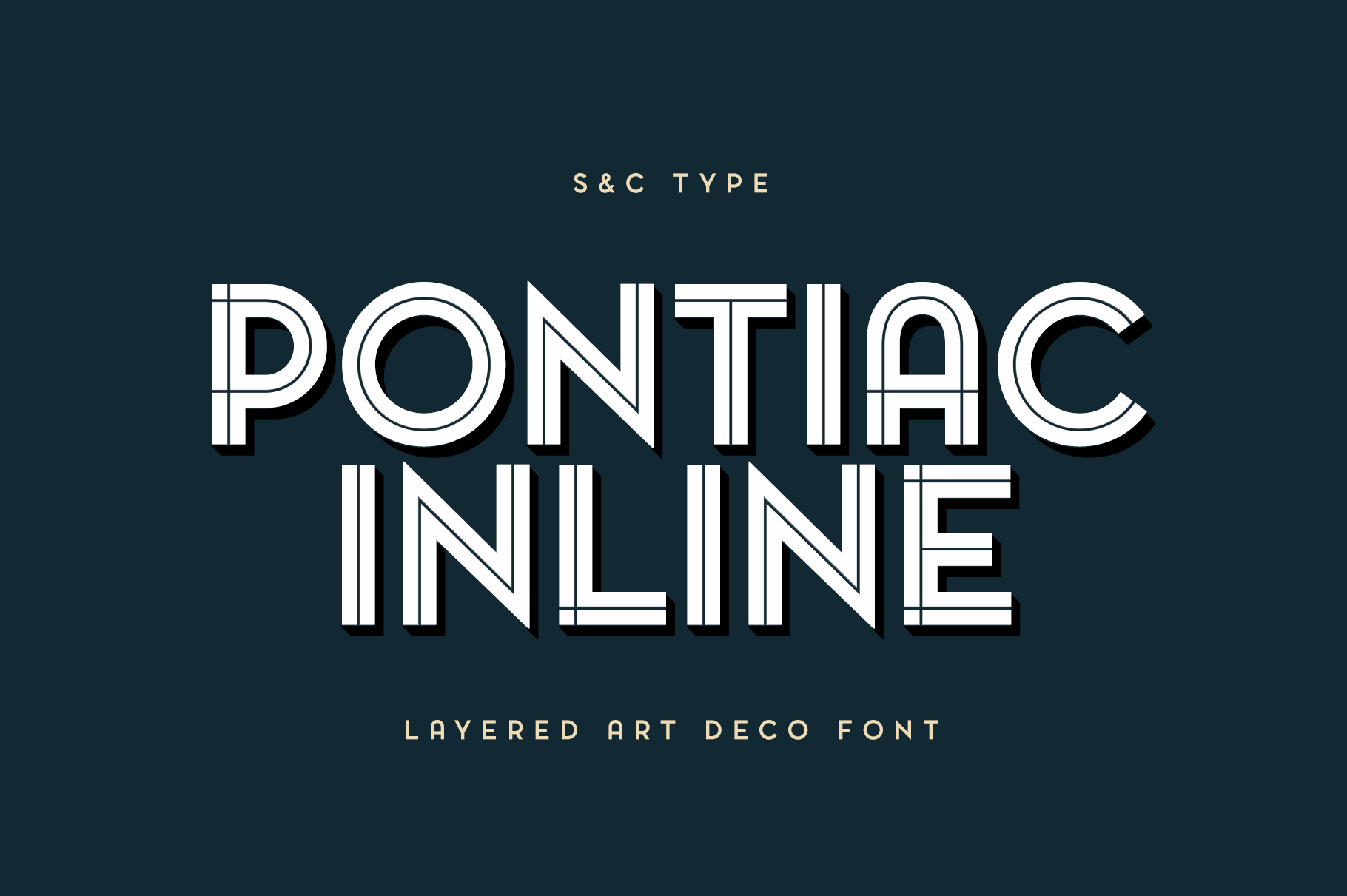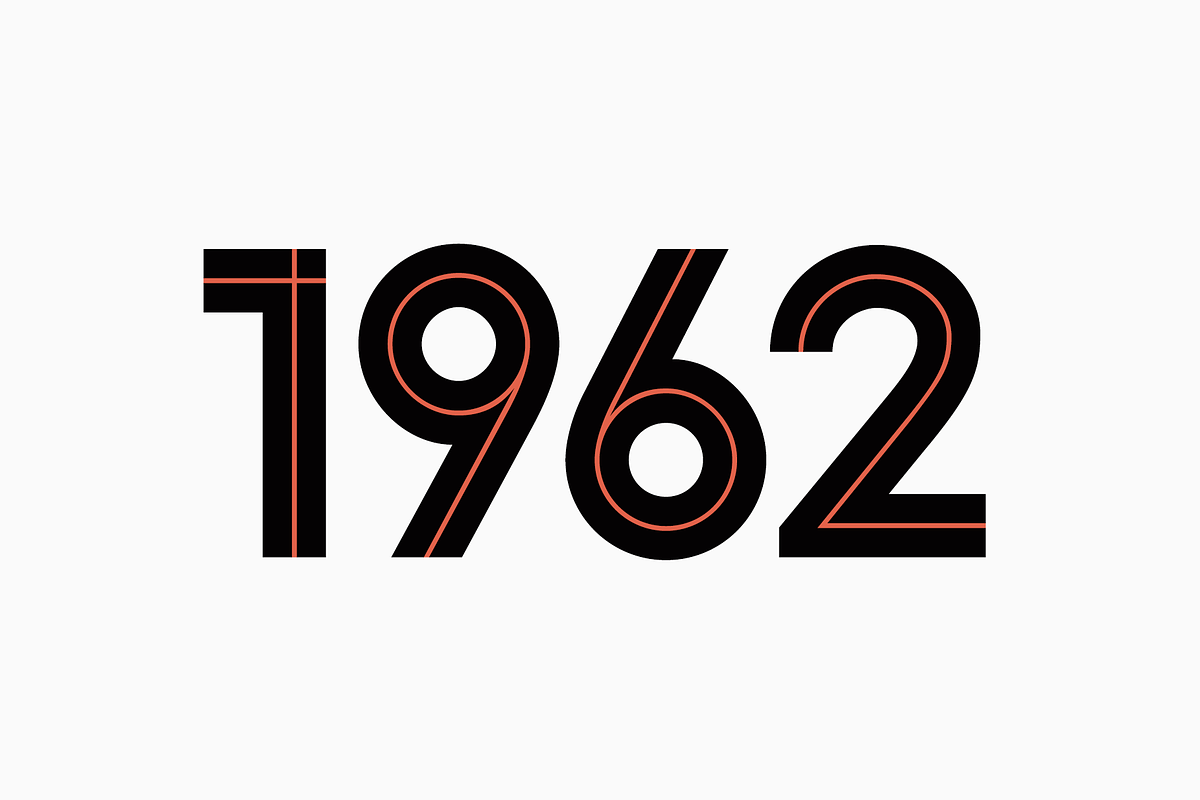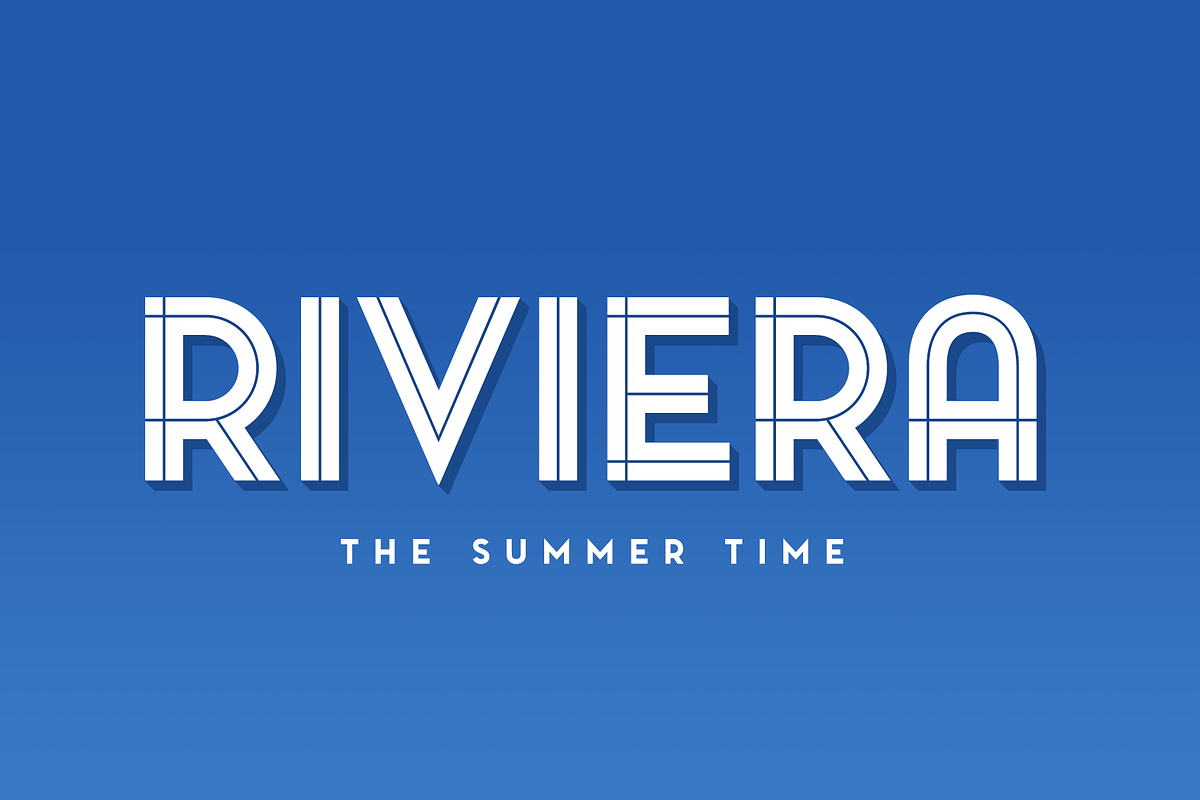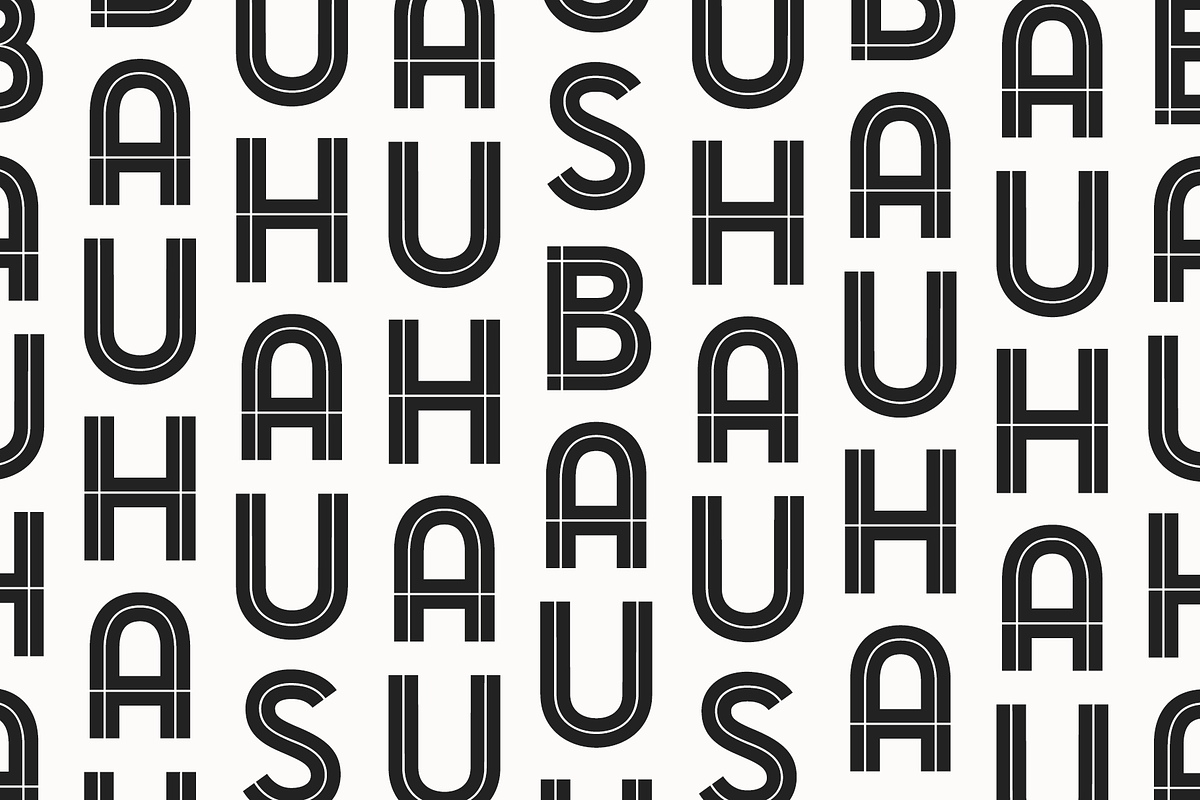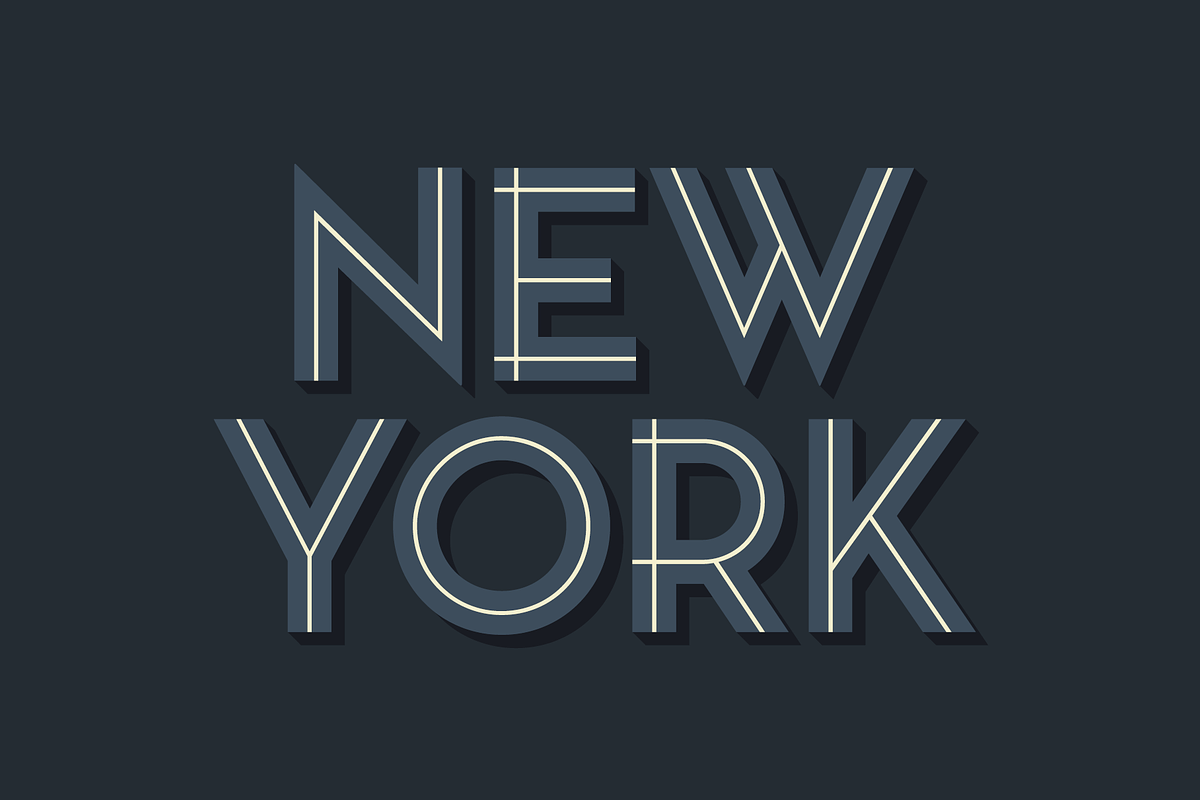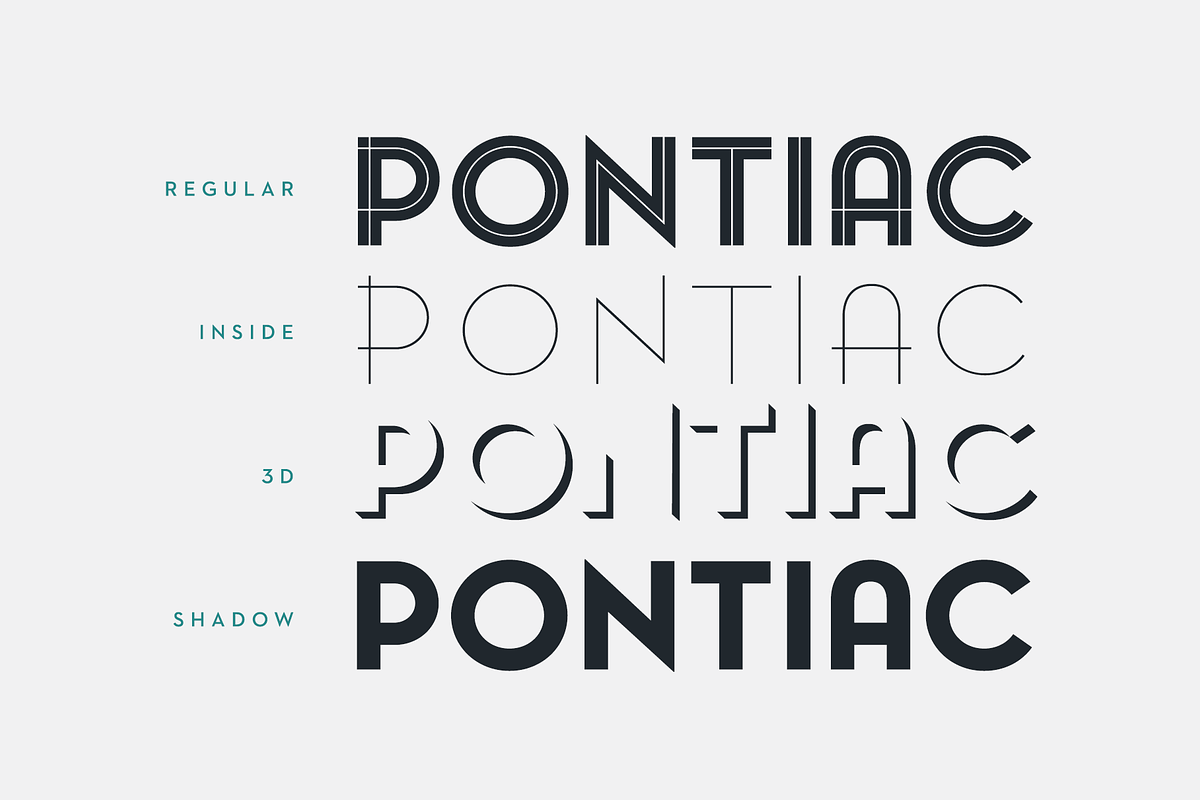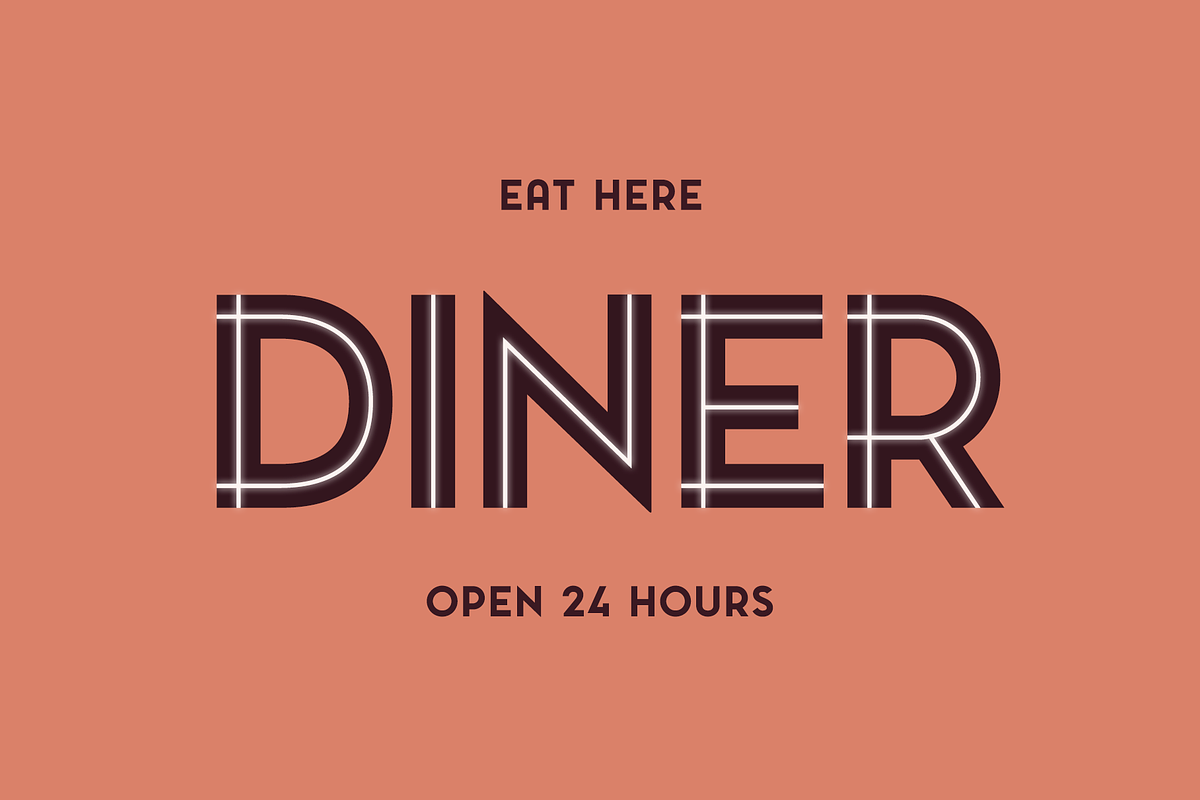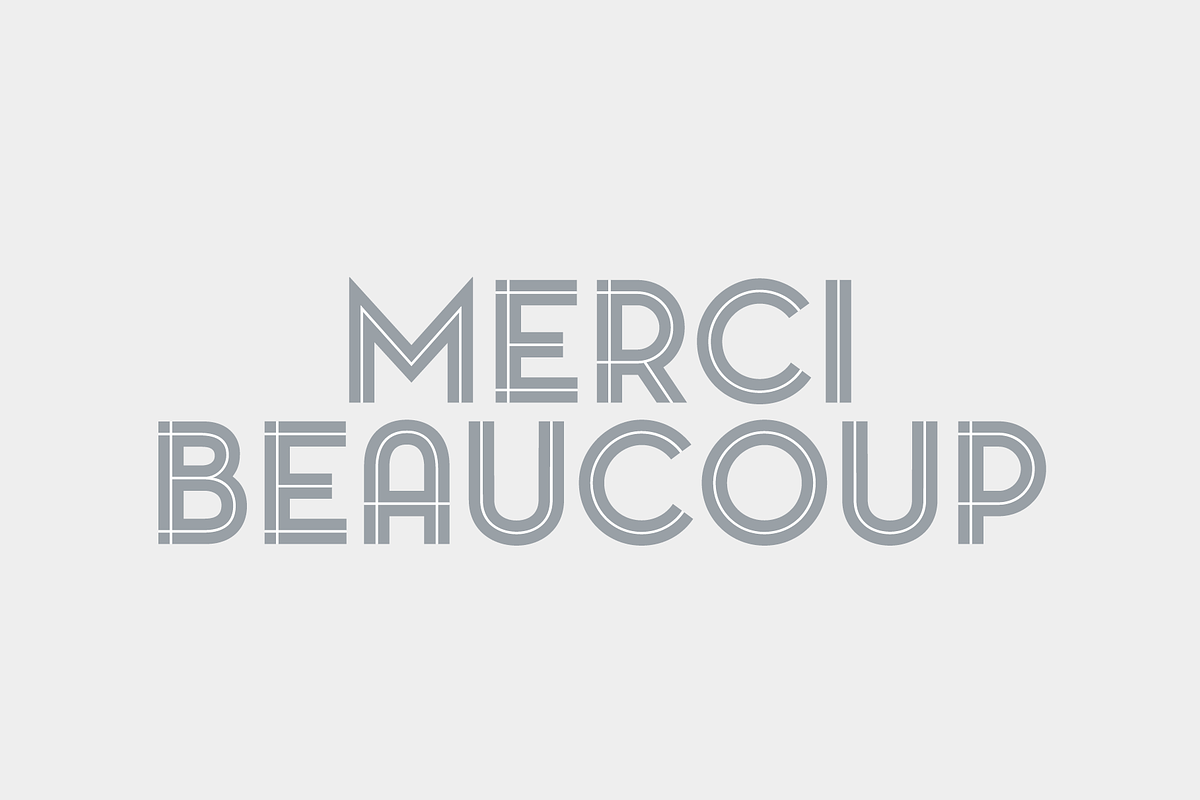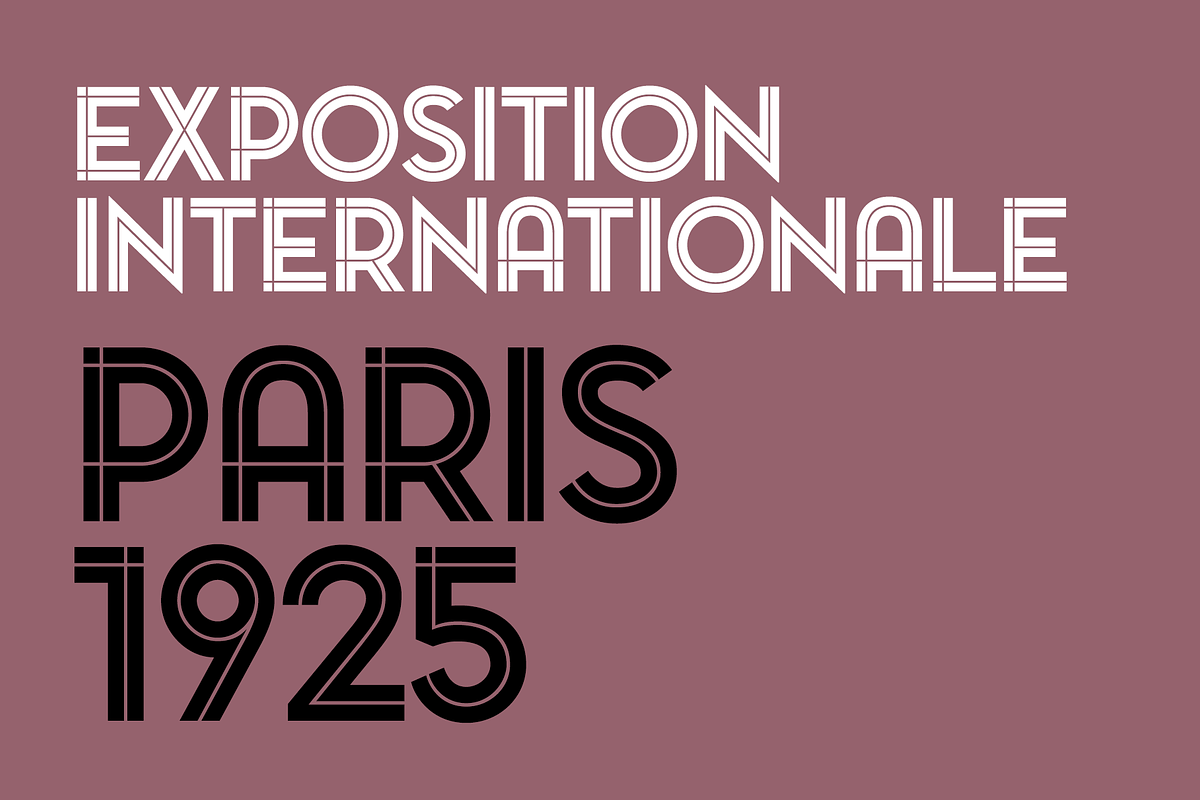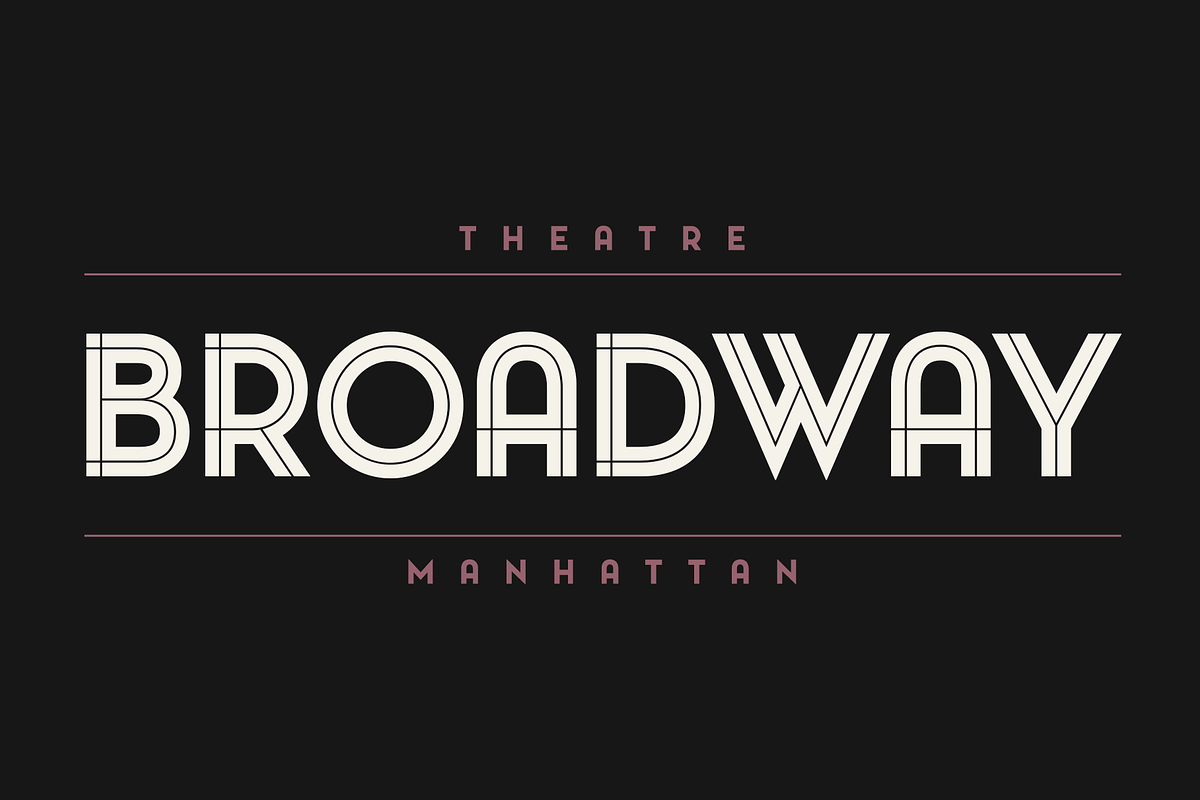
Pontiac Inline Font Collection
Pontiac Inline is a layered Art Deco font designed by Fanny Coulez and Julien Saurin in Paris. This finely balanced inline font can be enhanced to improve your designs and bring an unusual and modern feeling.
You could change the inside color, then add a 3D or shadow effect. To do so, you can simply superimpose the elements in compatible softwares (Photoshop, Illustrator...) ; The Regular above, the Inside line below, for example.
This pack include 4 fonts:
- Pontiac Inline Regular
- Pontiac Inline Inside
- Pontiac Inline 3D
- Pontiac Inline Shadow